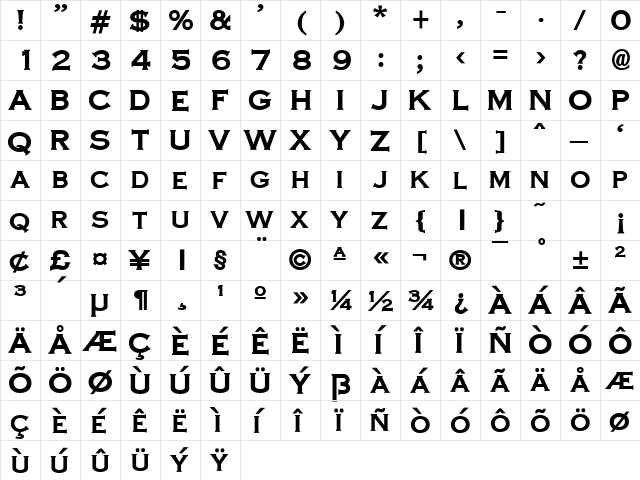
CopperPlate-Cond Bold
Design Context for CopperPlate-Cond Typeface
CopperPlate-Cond offers clean, dependable letterforms without strong stylistic allegiance, making it a practical choice for designers who need flexibility. The heavy weight commands attention and anchors typographic hierarchies. Its narrow stance lets it pack a punch even in space-constrained designs.